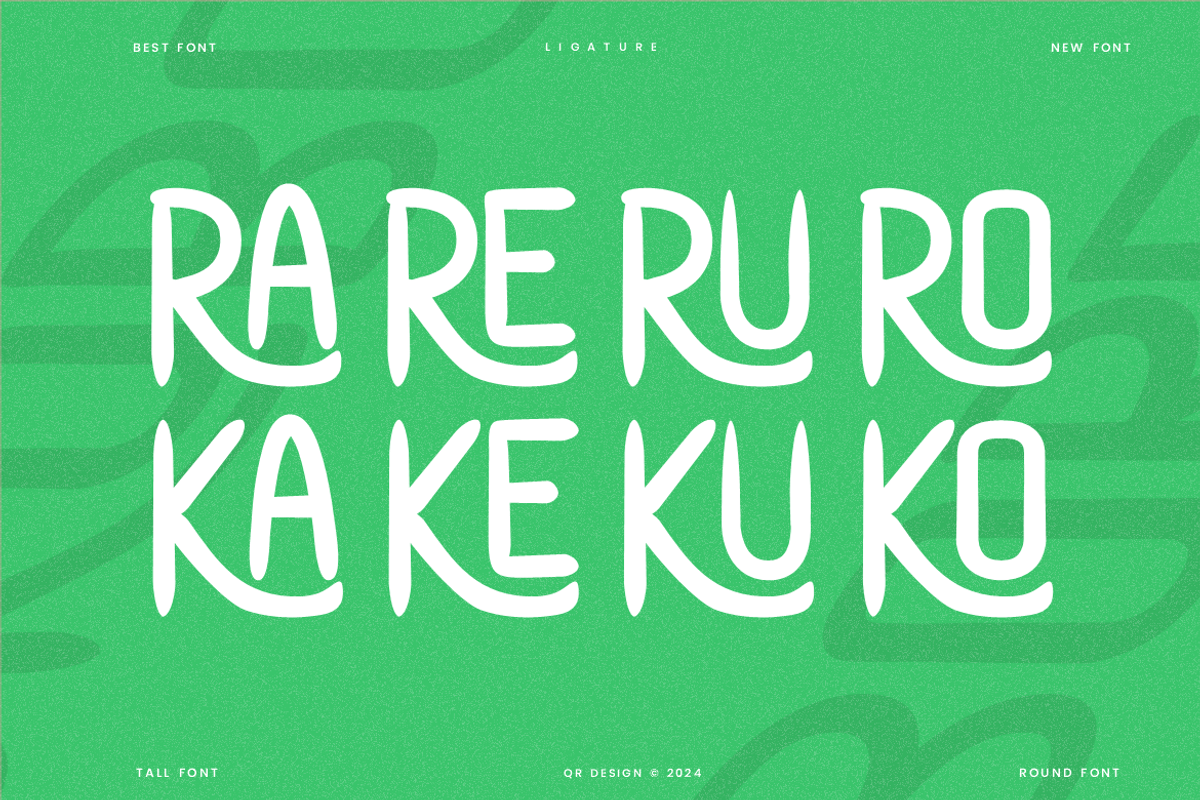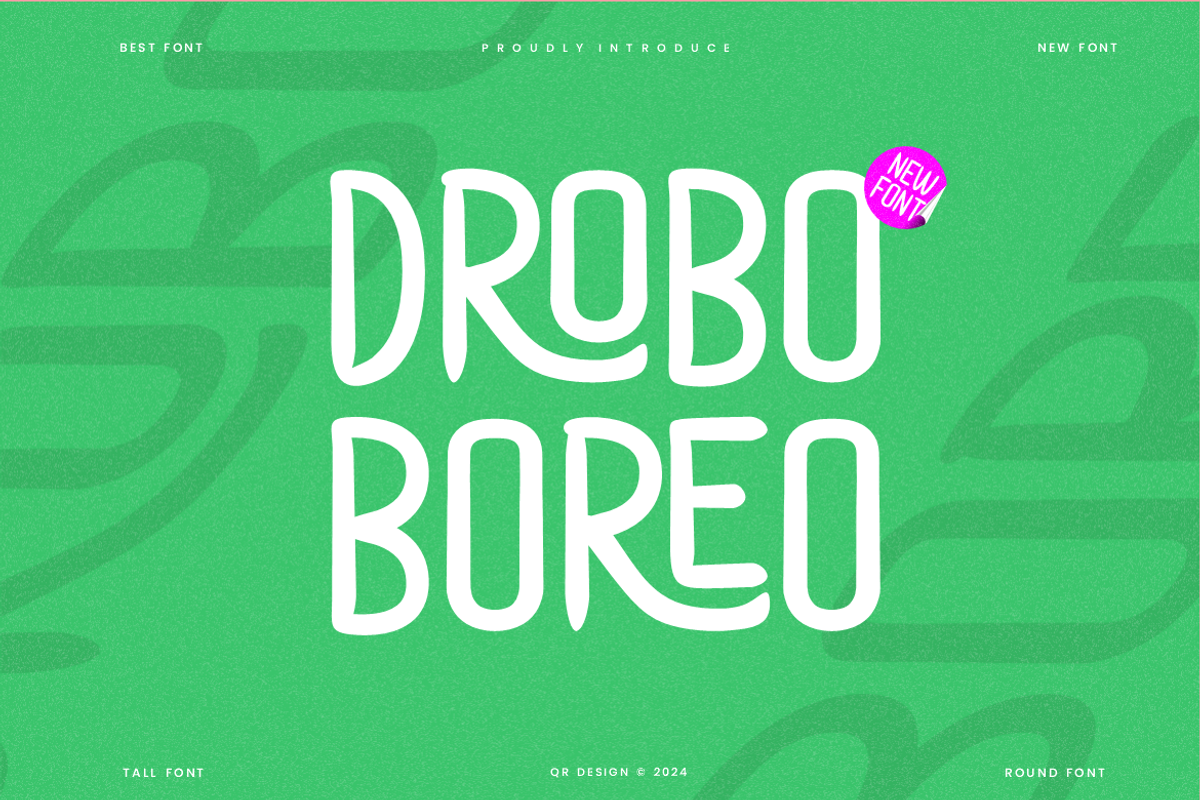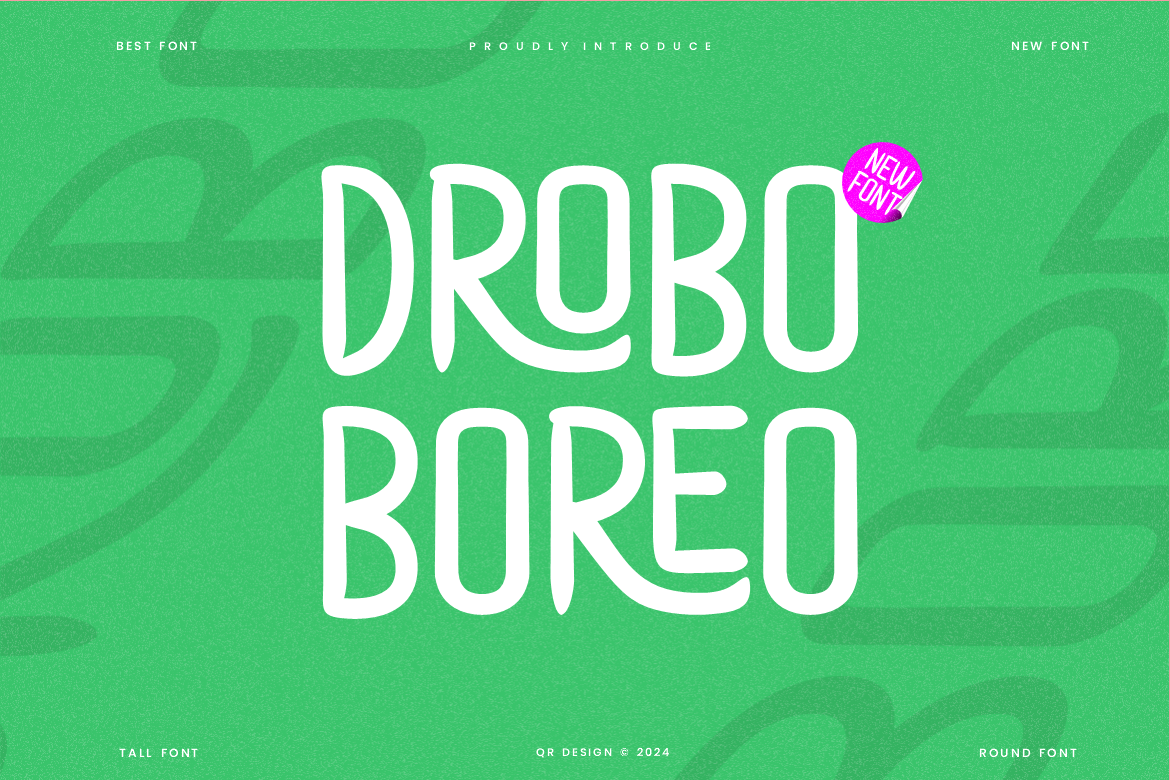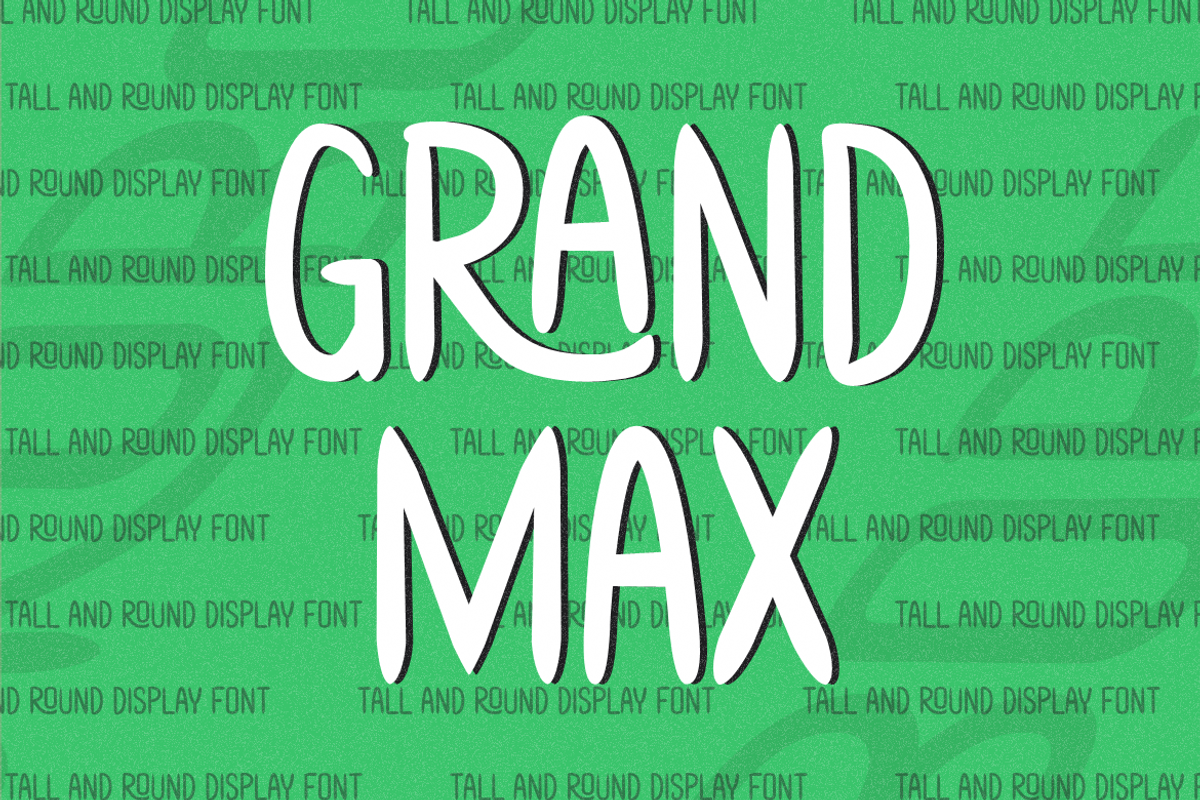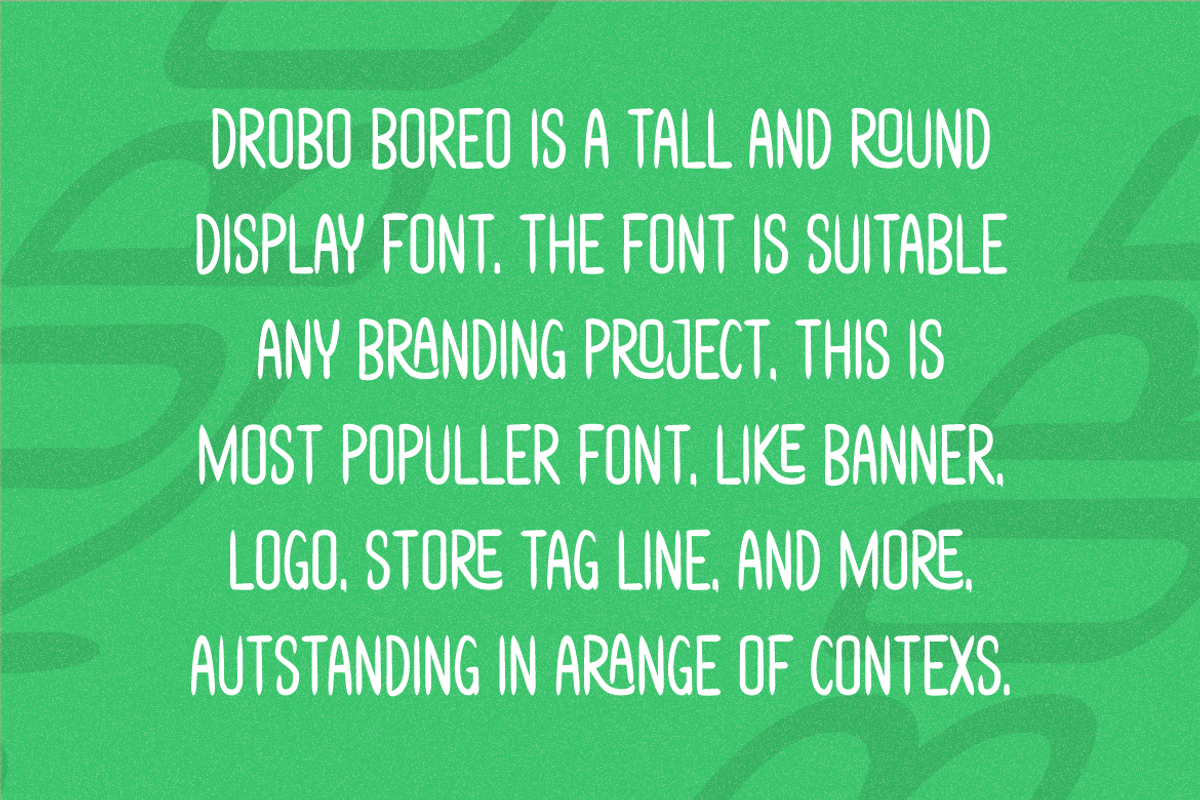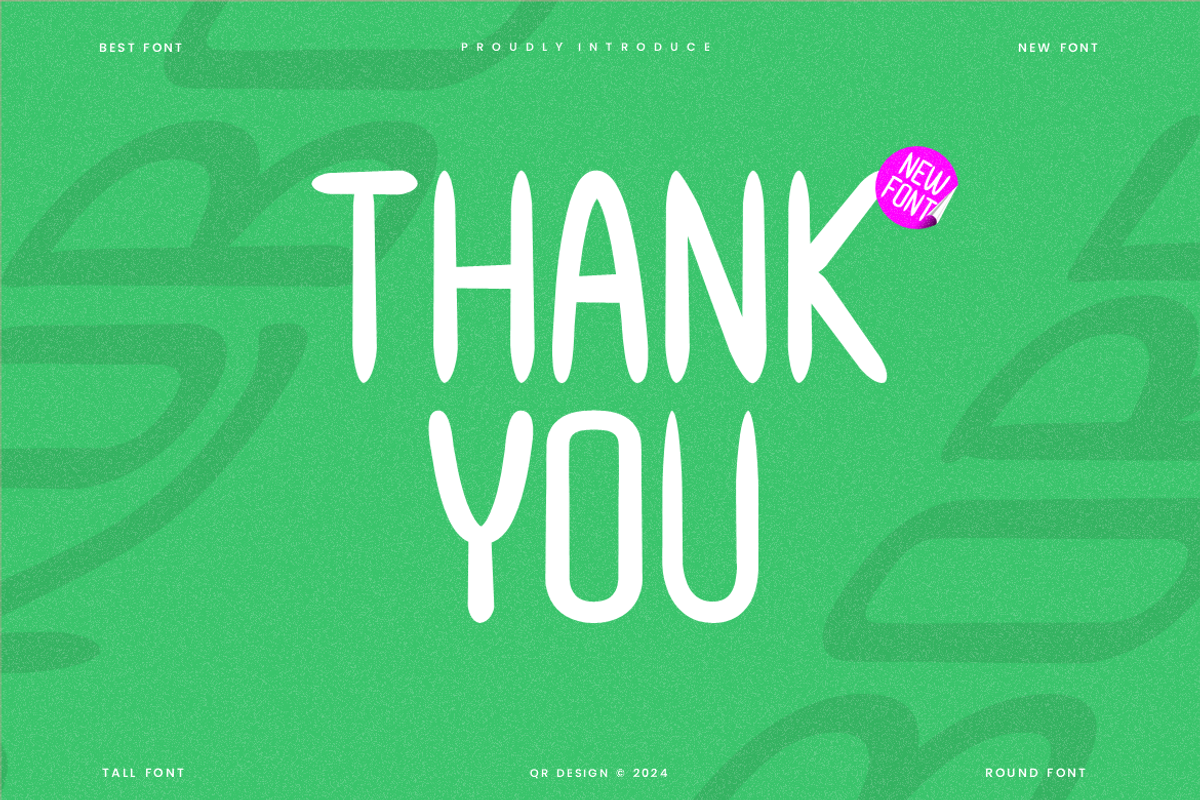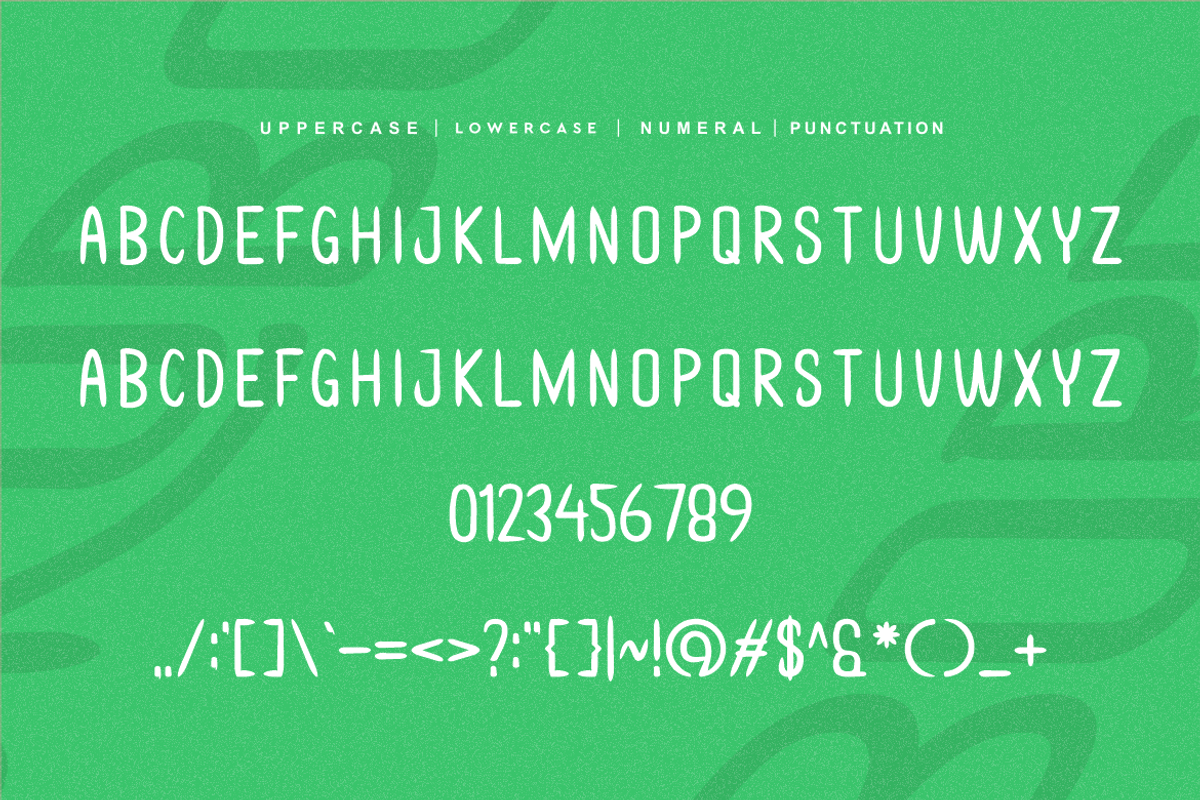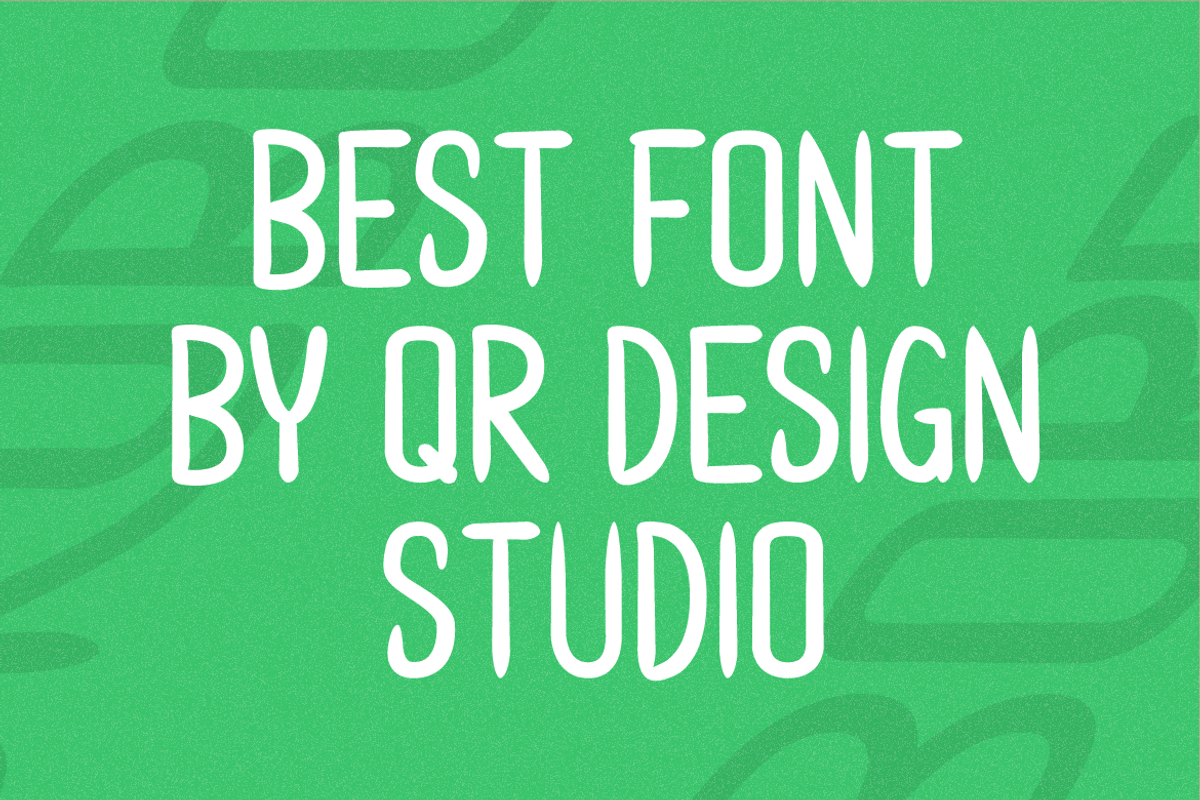
Drobo Boreo - Tall & Condensed Font
Drobo Boreo - Tall Font is a bold and authentic display font. The font is suitable for any branding project like poster, logo, sport, and many more. Outstanding in a wide range of contexts.